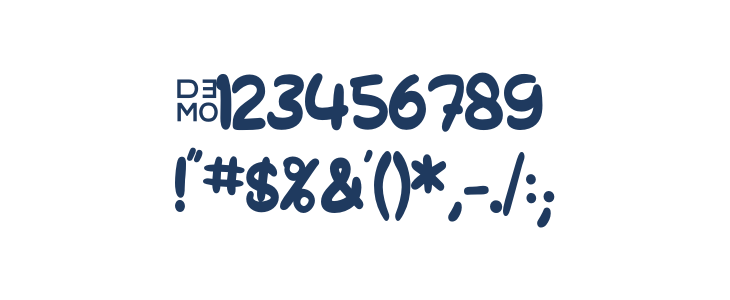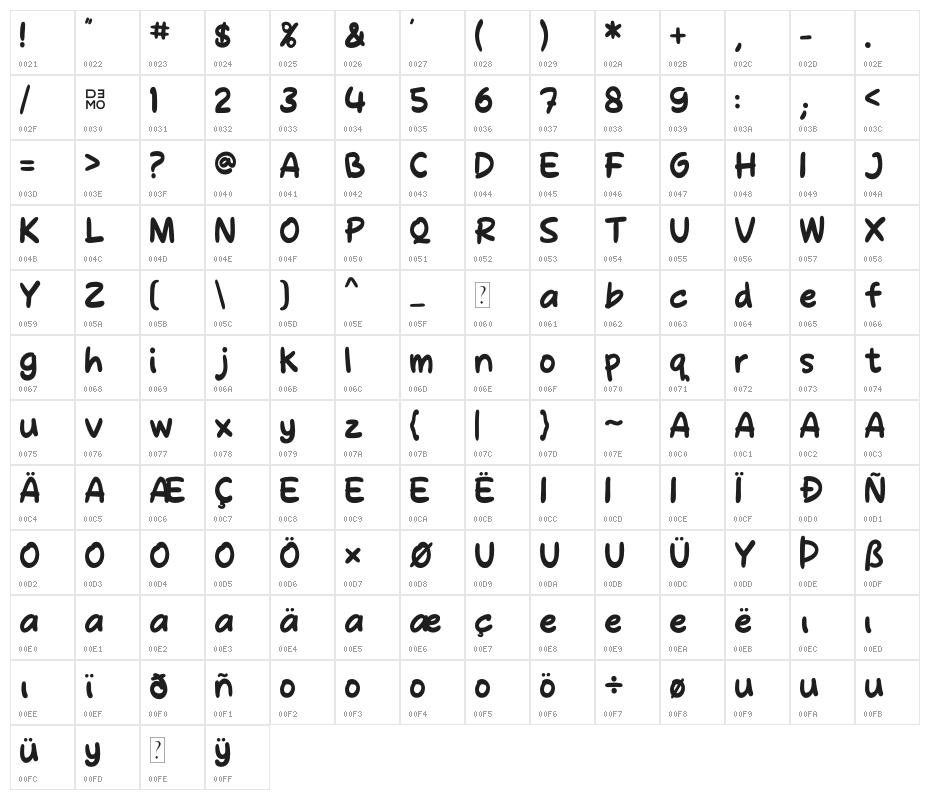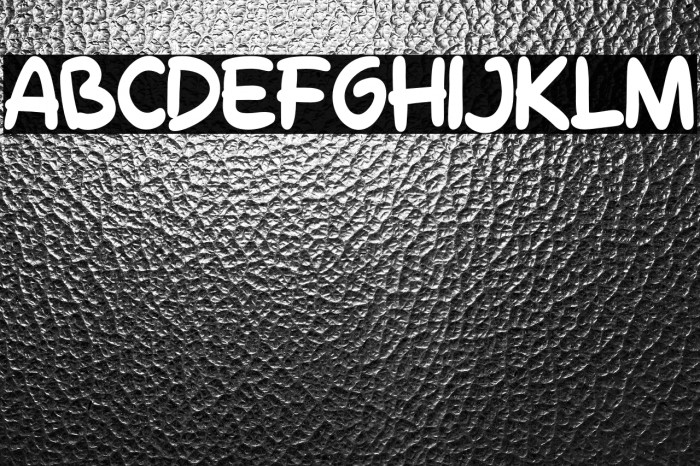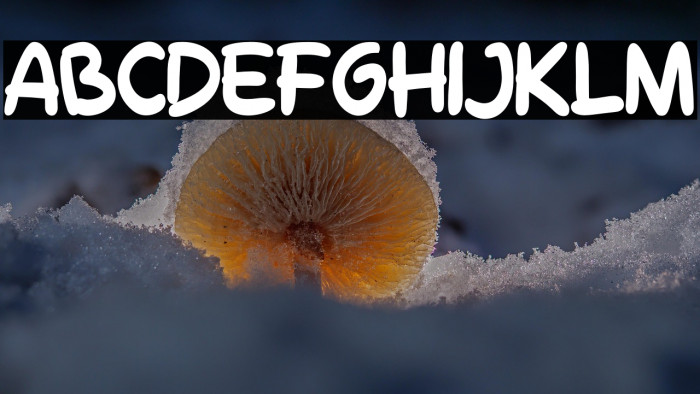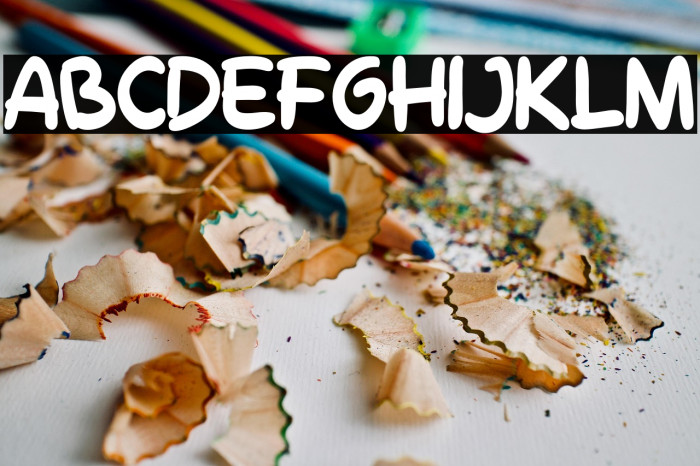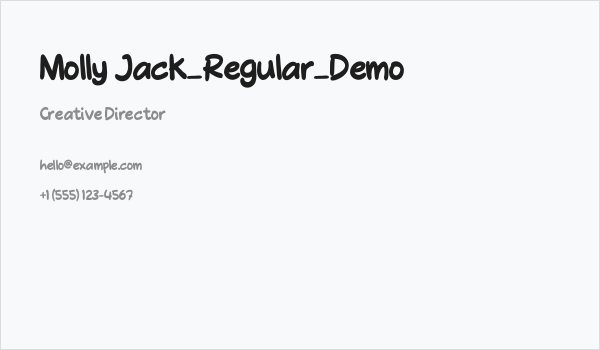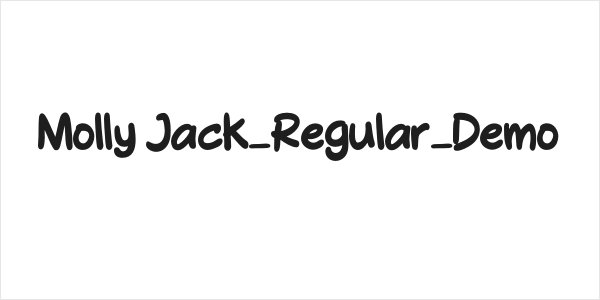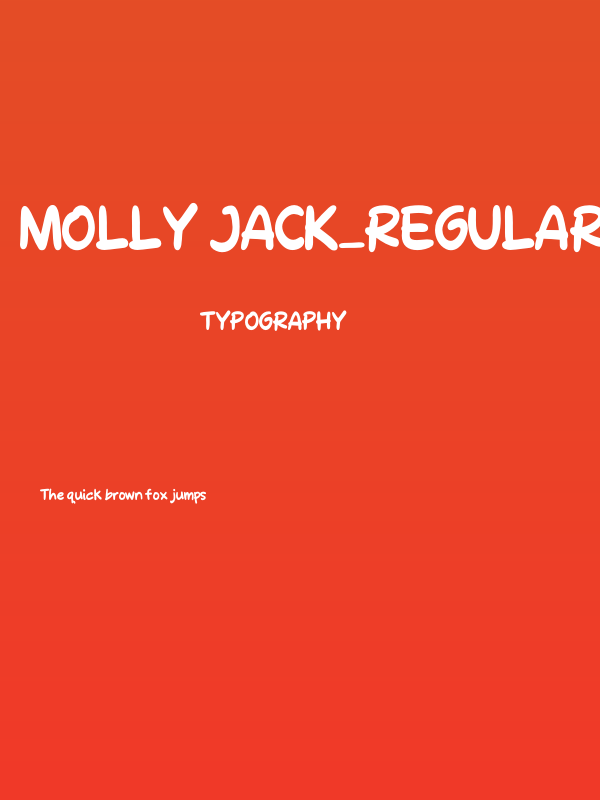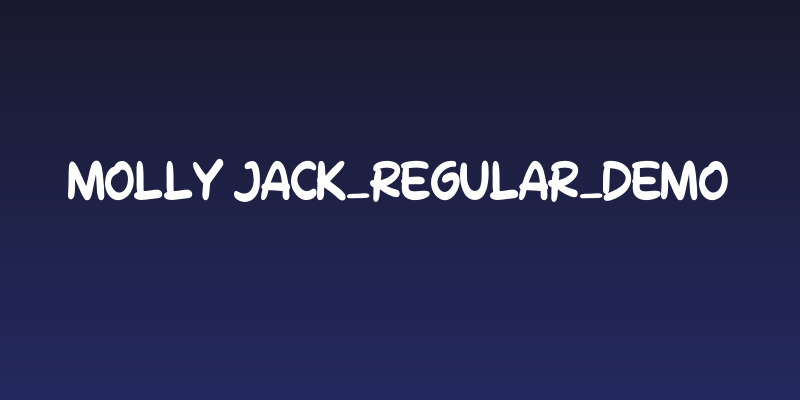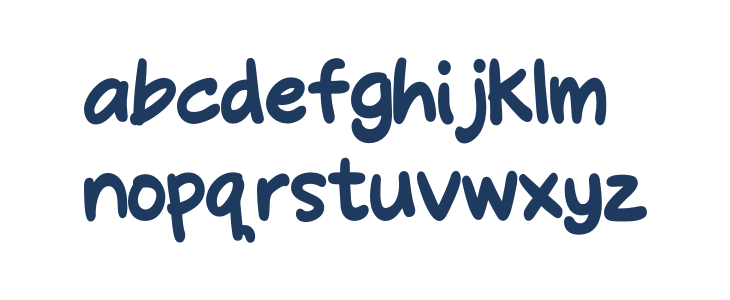
Molly Jack_Regular_Demo Font
Molly Jack_Regular_Demo Description
This font exhibits a playful and bold handwritten style, characterized by its rounded and thick strokes. The letters are slightly irregular, giving it a casual and friendly appearance. The uppercase and lowercase letters maintain a consistent weight, contributing to its cohesive look. Numbers and special characters follow the same design principles, ensuring uniformity across all glyphs. The font's overall style is approachable and informal, making it suitable for projects that require a personal touch. Its boldness ensures readability, even at smaller sizes, while the rounded edges add a touch of warmth.